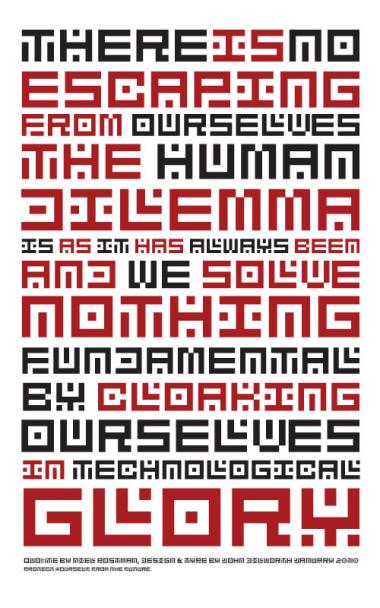
• The letter forms are based on solid square, where each letter form is created by removing only what is necessary to identify the letter and retaining consistency between the other letterforms.
An interesting result, especially the Uppercase which works so well in the sample. I'm not quite so sure about the lowercase.
Yes, the lower case is sucking big time right now. originally, I was thinking of the lowercase as an alternative, but I think I need to work it into something that works together with the uppercase.
Simple and expressive design. I tend to agree with p2pnut on the lower case. It's not easy to produce a full set of lc letters within the same 5x5 grid, with no ascenders or descenders. Very nice demo pic. 10/10
Very stylish. Crackin sample, very futuristic / UFO / Battlestar Galactic vibe.
D should be more like:
█████
█░░░█
█░█░█
█░░░█
█████
Of course, that would make it like O, which could perhaps be:
█████
█░░░█
█████
I disagree D is fine, and O is cool. The defo don't need changin.
I've been working on a few variations of this one. I wanted to create a few styles that could work together and create different forms by overlapping different weights, etc. Here's a result - with the 4 new styles in the center, and variations around the edges.
Not diggin' the lowercase letters, but otherwise a great font; remember, when you're dealing with small pixel fonts that don't leave much room for modification, it's best to just use the upper-case glyphs as the lower-case ones. It feels like you were getting desperate to come up with ideas for the lower-case glyphs.